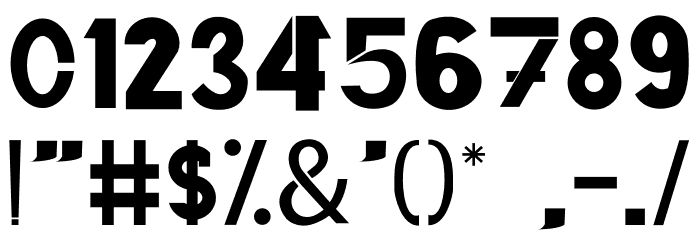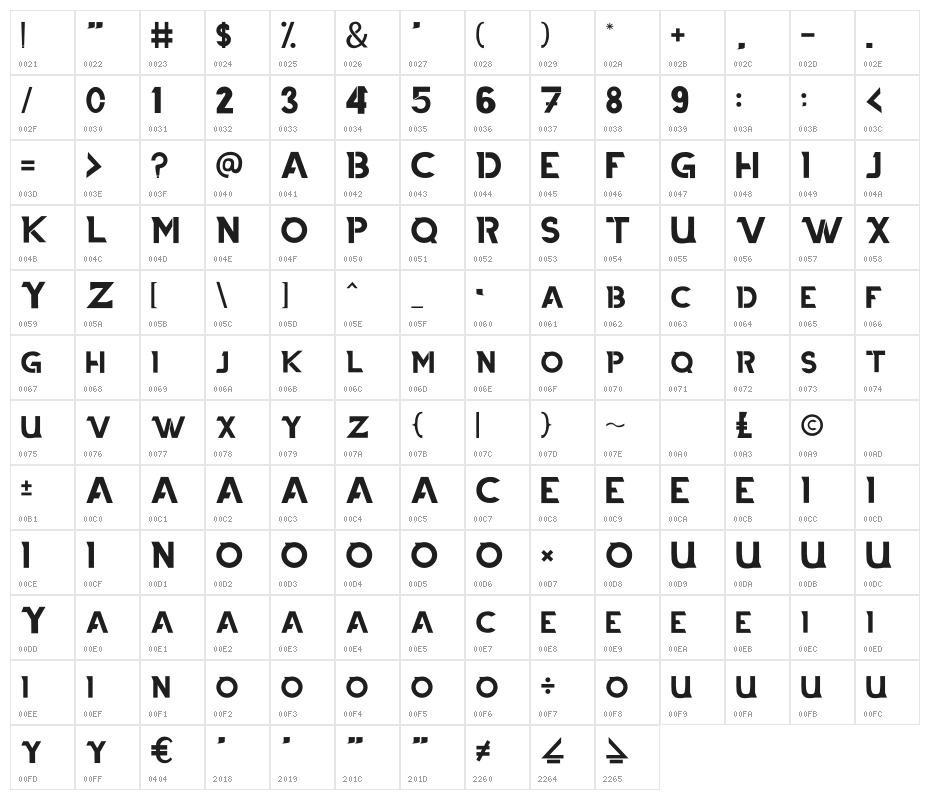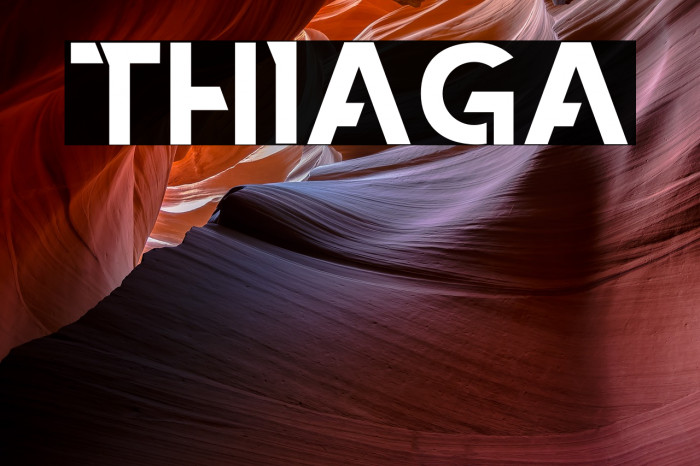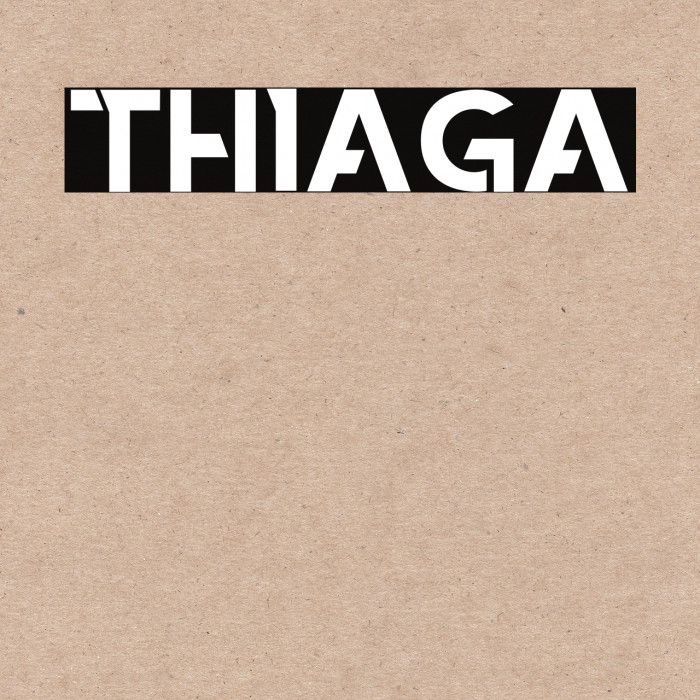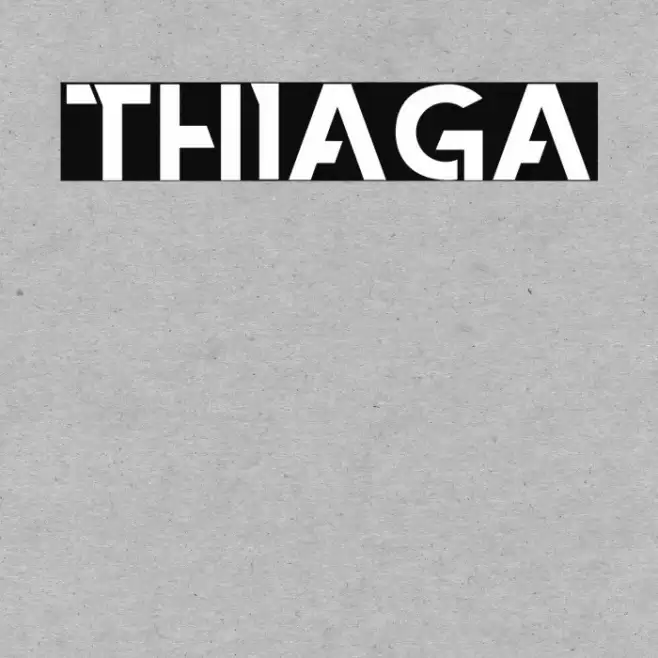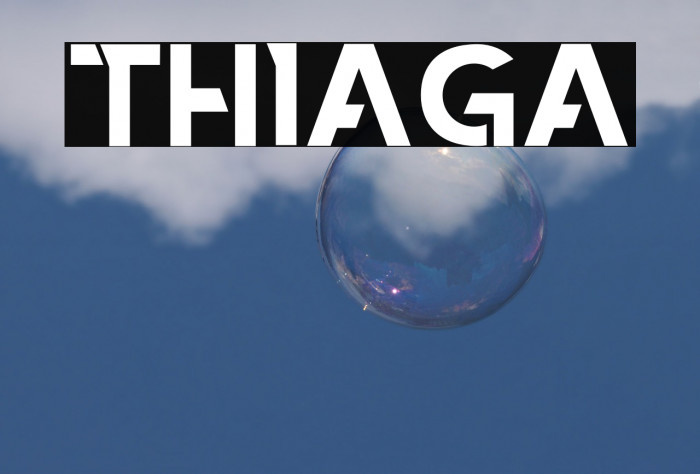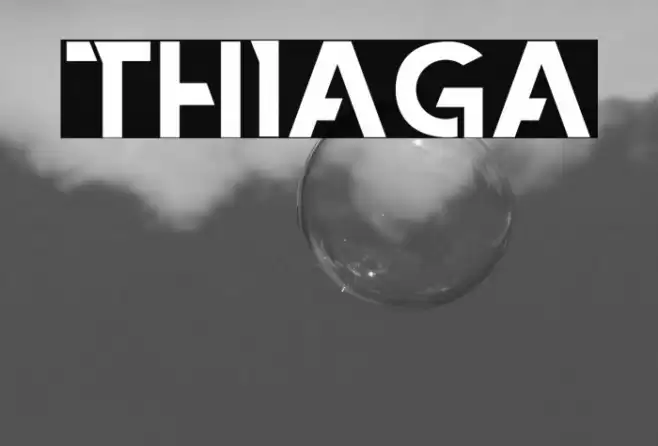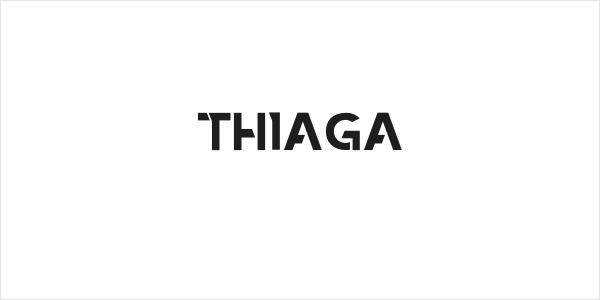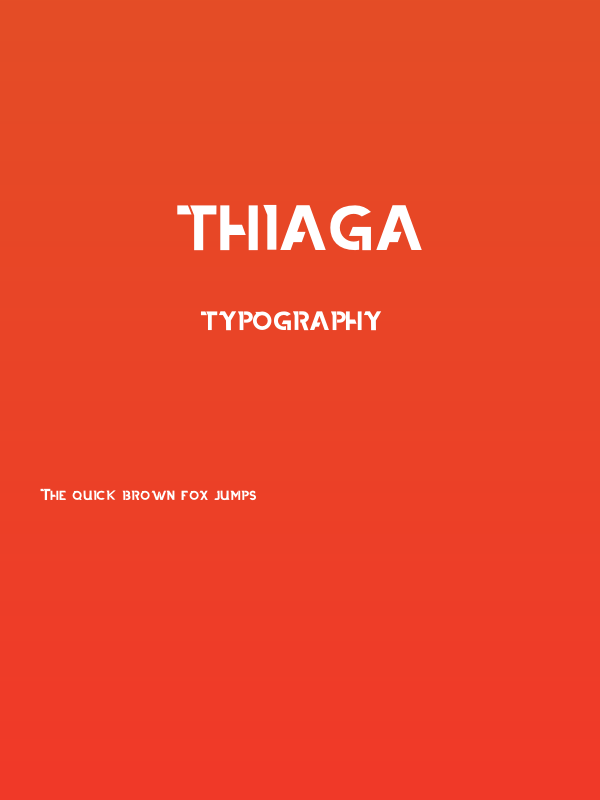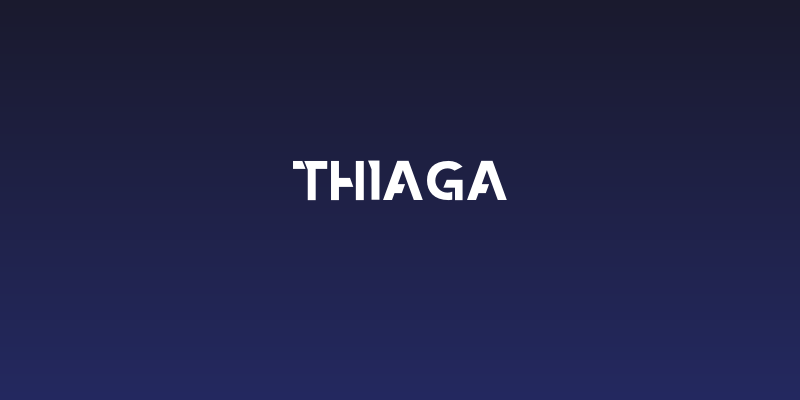
THIAGA Font
THIAGA Description
This font features a bold and geometric design with sharp angles and clean lines. The uppercase letters are distinct with a futuristic and industrial feel, characterized by their blocky and angular shapes. The numbers and special characters maintain this bold aesthetic, ensuring consistency across all glyphs. The font's design is striking and attention-grabbing, making it suitable for impactful headlines and branding materials. Its unique style is both modern and slightly retro, offering versatility in various design contexts.
| Proposed Projects | Ideal for branding, logos, posters, and headlines that require a strong visual impact. |